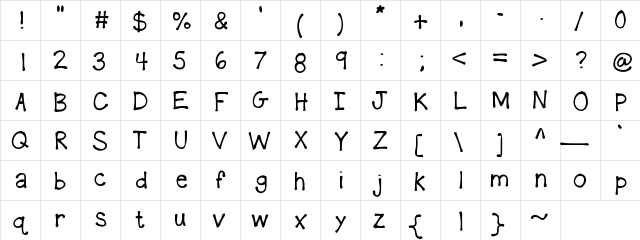
KBPlayDate Medium Font Preview
KBPlayDate Medium
KBPlayDate Medium Font Details
Design Context for KBPlayDate Typeface
KBPlayDate takes a measured approach to typography — its balanced proportions and neutral character make it a reliable workhorse for both digital and print work.